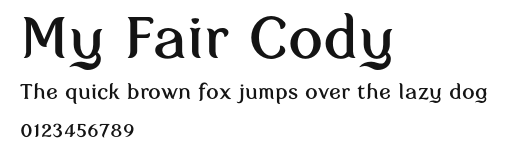
• Font Name: My Fair Cody
• Designer: Darim Kim
• Description: This font was designed by Darim Kim for the memory of her beloved border collie, Cody. Initially designed as an illustrative font "CodyTheBorderCollie", the lower cases were adopted to create this elegant typeface.
My Fair Cody.otf is a modern, elegant sans-serif font designed for ultimate readability and visual harmony. Perfect for branding, headlines, web design, and print materials.